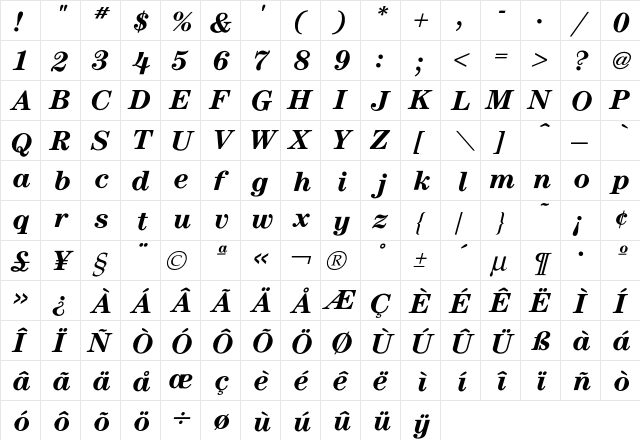
Century BoldItalic Font Preview
Design Context for Century Typeface
Century takes a measured approach to typography — its balanced proportions and neutral character make it a reliable workhorse for both digital and print work. The slanted form adds forward momentum and visual energy. The heavy weight commands attention and anchors typographic hierarchies.
Pro Tip: Try Century for annotation and caption copy alongside an upright companion — the contrast in angle creates a dynamic but ordered typographic system.